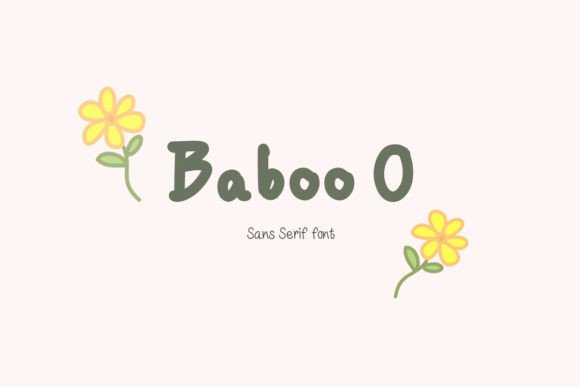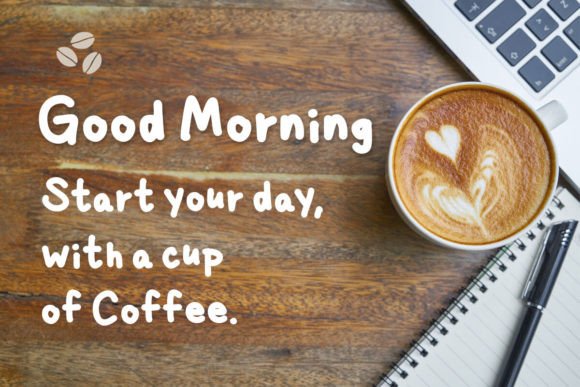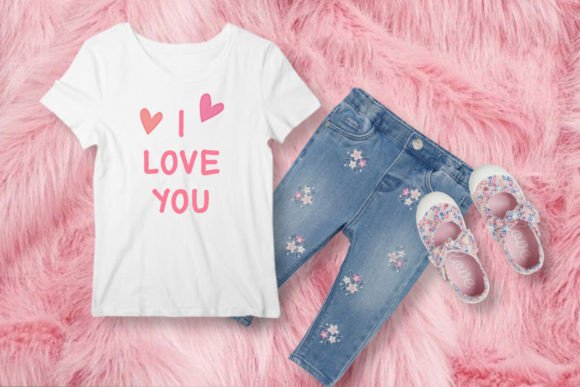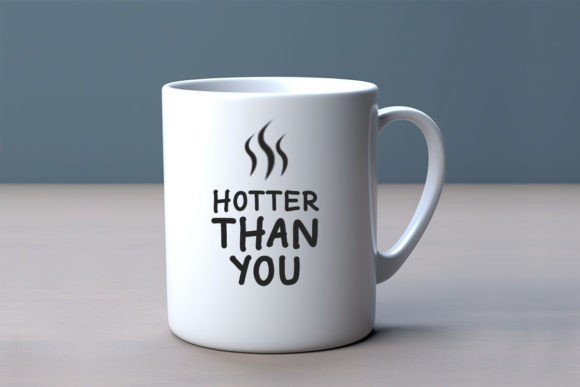
Baboo O Font: A Cute Sans Serif for Back to School & Playful Branding
About the Baboo O Font
The wait is over! The incredible Baboo O Font is now available for your design toolkit. Baboo O is a thick-lettered, minimal and adorable sans serif font. This font is perfect for a wide spectrum of applications such as headlines, branding and packaging, back to school, party decoration, thank you cards, quotes, logos, posters, blogs, bag, T Shirt, clothing and many more!
Its bold, yet friendly personality makes Baboo O ideal for headlines, branding projects needing a playful touch, and packaging designs targeting a younger demographic. It also works well for short, impactful text in posters and social media graphics. However, its thick stroke weight makes it less suitable for body text or UI elements where readability over long stretches is crucial.
For optimal visual harmony, pair Baboo O with a clean sans-serif like Lato for body copy, or a delicate script font such as Great Vibes for a touch of elegance in secondary text elements. A geometric sans-serif could also provide a pleasing contrast, offering a modern edge. Avoid pairing it with overly ornate or highly decorative fonts that might visually clash with its minimalist aesthetic.
Baboo O’s core personality is best described as cheerful and approachable. It’s a versatile choice for brands that want to convey a sense of fun and approachability without sacrificing visual impact.